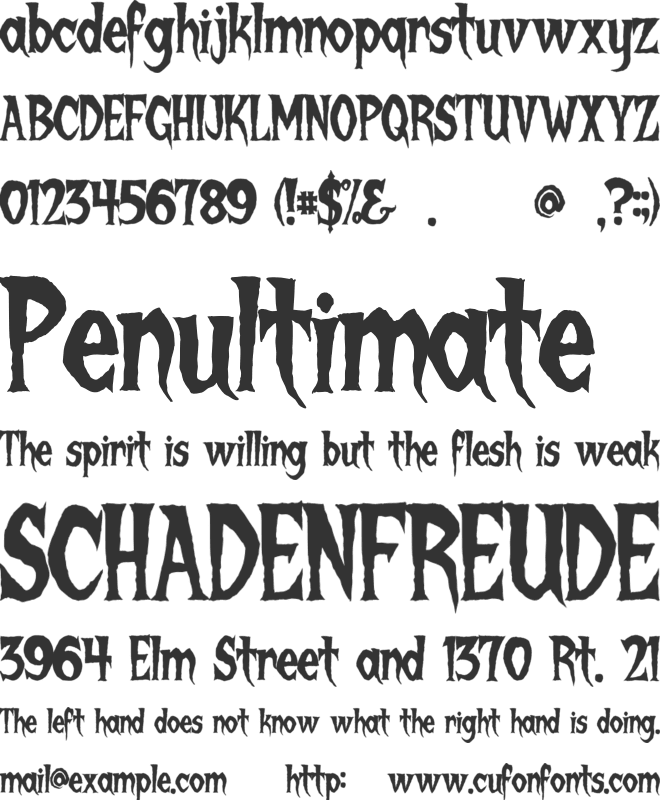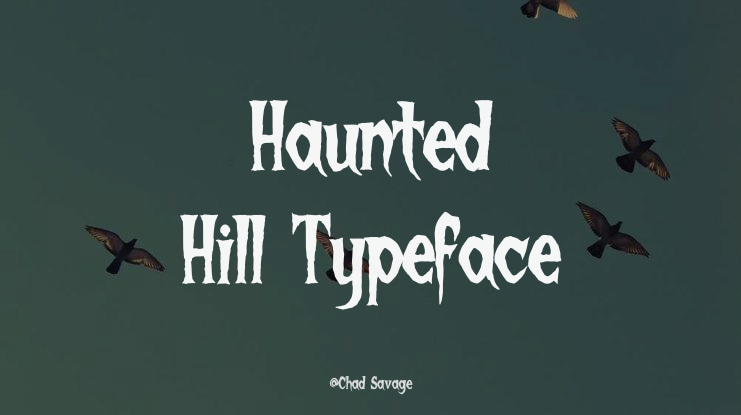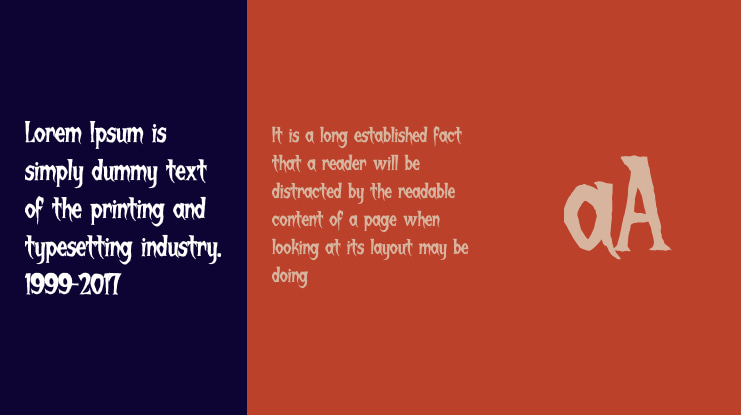
Haunted Hill Font Family
Haunted Hill Font Set by Chad Savagehttps://www.sinisterfonts.comCreated 2024, hand-lettered. I was watching the extras on my DVD copy of 1959's classic "House on Haunted Hill" and was struck by the lettering used for the movie title. I've never seen it anywhere else - just that one trailer. So I had to turn it into a font! I wasn't concerned with it being letter-perfect so much as capturing the look-and-feel. Then I did a couple of variants just for funsies!This is a free font, and I mean FREE. Use it however you want, for whatever you want, for personal and commercial purposes (you do NOT need to email me and ask permission - this is that!). If you make something cool with it, I'd love to see it - email me at  and tell me about it. If you offer it for download on your own font site, PLEASE include this Read Me. That's not too much to ask, is it?This font is intended for specialty and graphic uses. It will look just awful if used in a paragraph format.For more free fonts and other downloadable goodies, visit https://www.sinisterfonts.com.FOR INSTRUCTIONS ON HOW TO INSTALL/USE THIS FONT, visit https://www.sinisterfonts.com, or just look it up on Google. Seriously. Don't email me and ask - this information is easily found with a 20-second search.   More...For original spooky patches, stickers, t-shirts, artwork and more, visit https://www.shopsinister.com.For Chad Savage's dark artwork, visit https://www.chadsavage.com.WANT TO MAKE A DONATION? Use the "Donate" button at SinisterFonts.com!